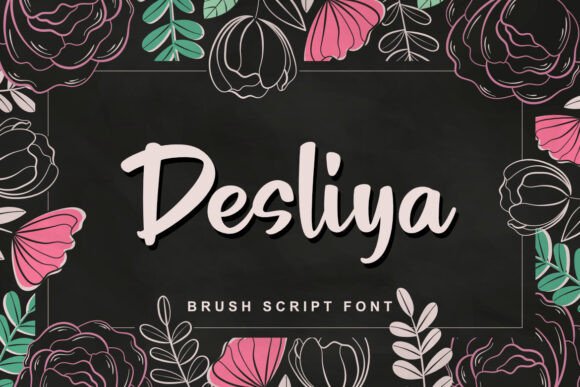
Introducing Desliya: A Stunning Brush Script Font for Creative Minds
Are you a designer, craftsperson, or simply someone who appreciates beautiful typography? Look no further than Desliya, a premium brush script font that is sure to elevate your creative projects. With its high-quality design and versatility, Desliya is the perfect addition to your font collection.
What is Desliya Font?
Desliya is a brush script font that exudes elegance and sophistication. This font is carefully crafted with attention to detail, ensuring that every letter, curve, and line is of the highest quality. The result is a beautiful, flowing script that is perfect for a wide range of applications, from flyers and posters to packaging and merchandise.
Key Features of Desliya Font
- High Premium Quality: Desliya font is designed with a high premium quality level, ensuring that it looks great in any context.
- Versatility: This font is perfect for a wide range of projects, including flyers, quotes, posters, banners, packaging, merchandise, logotypes, and more.
- Elegant and Sophisticated: Desliya’s brush script design gives it an elegant and sophisticated feel that’s perfect for creative projects.
- Easy to Read: Despite its elegant design, Desliya is easy to read, making it perfect for body text and headlines.
Use Cases for Desliya Font
Desliya’s versatility makes it perfect for a wide range of projects, including:
- Flyers and Brochures: Add a touch of elegance to your marketing materials with Desliya.
- Posters and Banners: Make a statement with Desliya’s bold, brush script design.
- Packaging and Merchandise: Add a personal touch to your products with Desliya’s unique and elegant design.
- Logotypes and Branding: Use Desliya to create a memorable and sophisticated brand identity.
- Quotes and Inspirational Messages: Add a touch of elegance to your inspirational quotes and messages with Desliya.
Why Choose Desliya Font?
With so many fonts available, why choose Desliya? Here are just a few reasons:
- Unique Design: Desliya’s brush script design sets it apart from other fonts, making it perfect for designers and craftspersons who want to add a personal touch to their projects.
- High-Quality Design: Desliya is designed with attention to detail, ensuring that it looks great in any context.
- Versatility: Desliya is perfect for a wide range of projects, making it a great addition to any font collection.
Tips for Using Desliya Font
Here are a few tips for getting the most out of Desliya:
- Experiment with Different Sizes: Desliya looks great in a variety of sizes, from large headlines to smaller body text.
- Pair with Other Fonts: Desliya pairs well with a variety of other fonts, making it perfect for use in combination with other typography.
- Use for Headlines and Titles: Desliya’s elegant design makes it perfect for use in headlines and titles.
| Font Name | Desliya Font |
| Author | Bayuktx |
Desliya is a stunning brush script font that is perfect for designers, craftspersons, and anyone who appreciates beautiful typography. With its high-quality design, versatility, and elegant feel, Desliya is sure to elevate your creative projects. Whether you’re working on a flyer, poster, packaging, or merchandise, Desliya is the perfect choice.